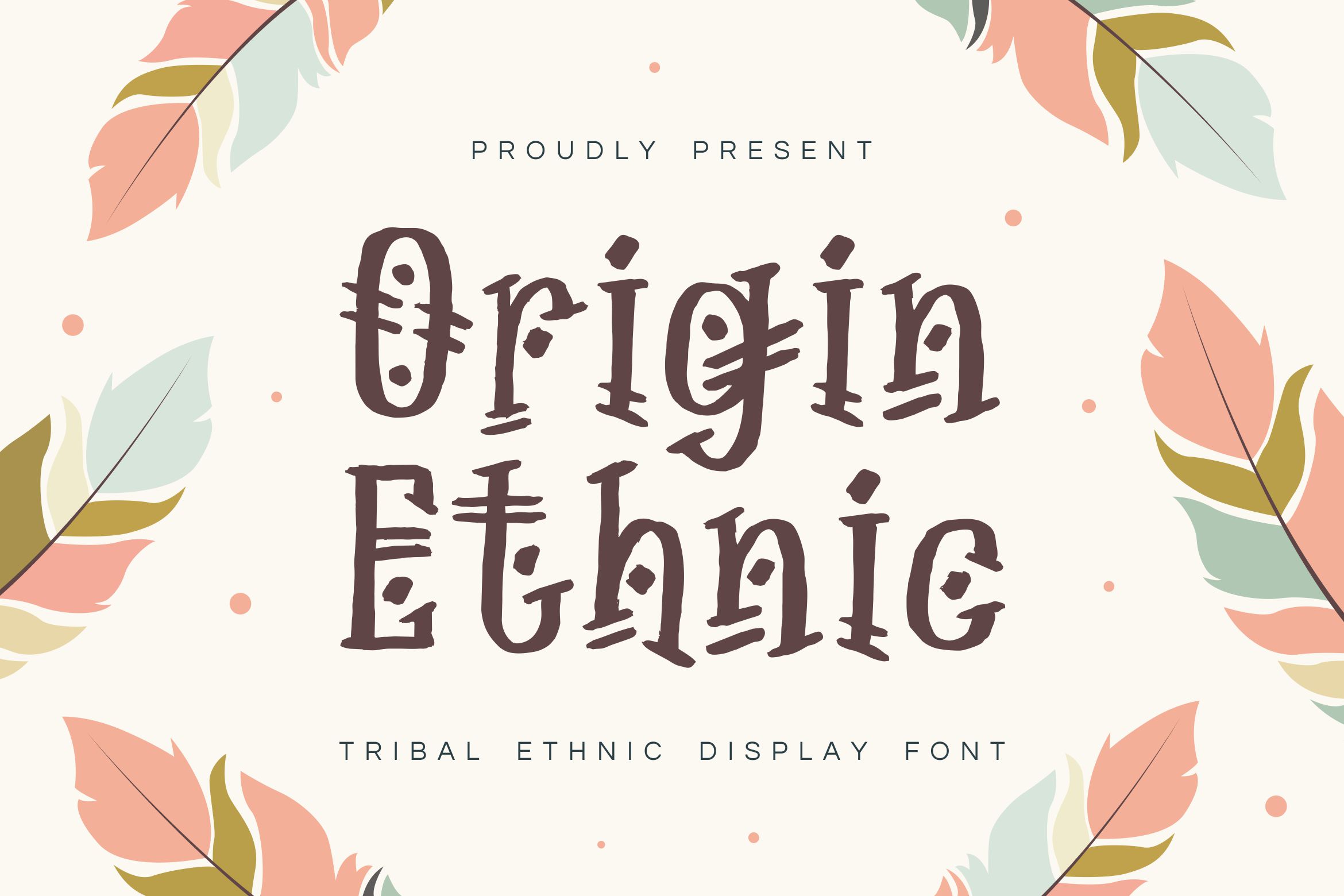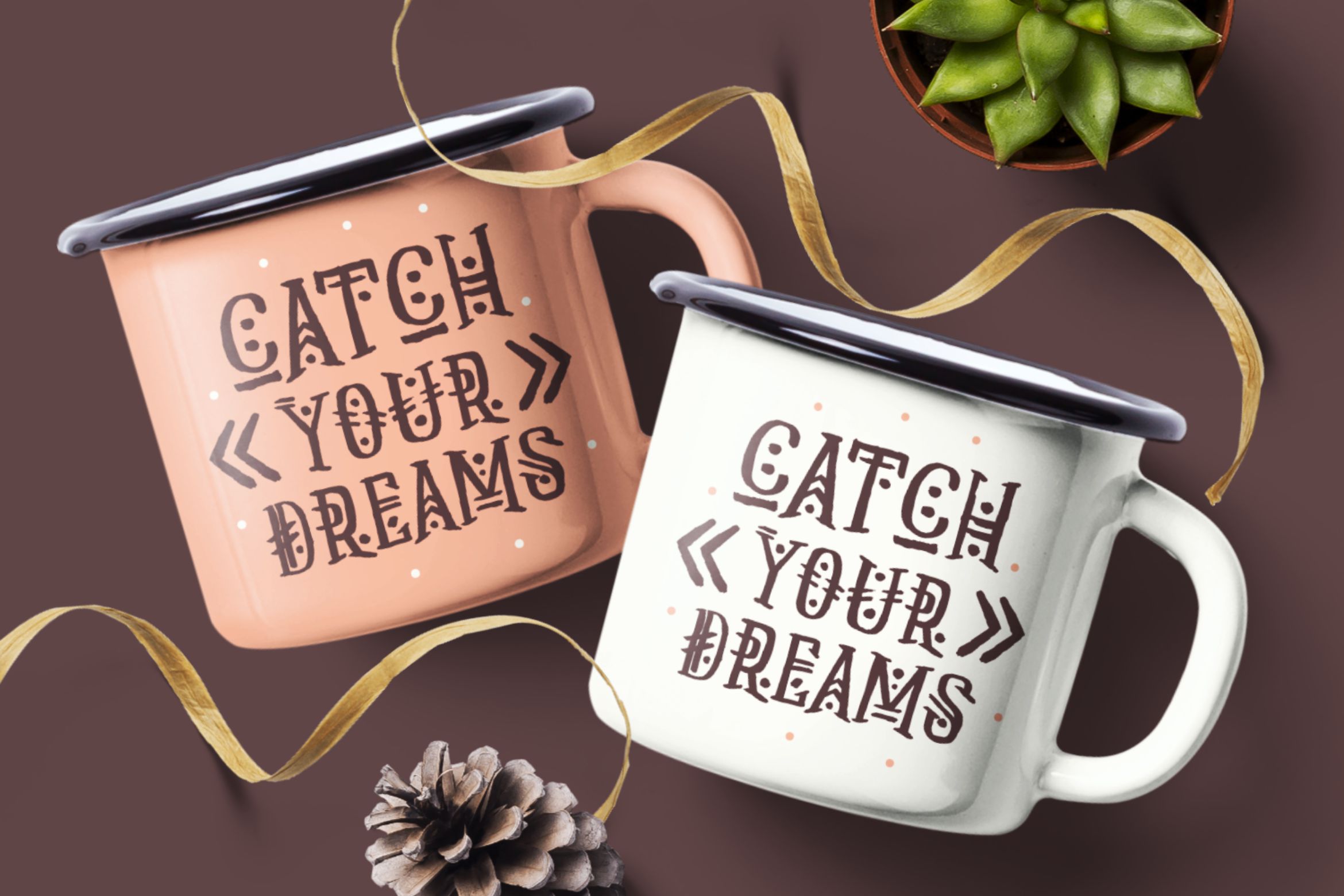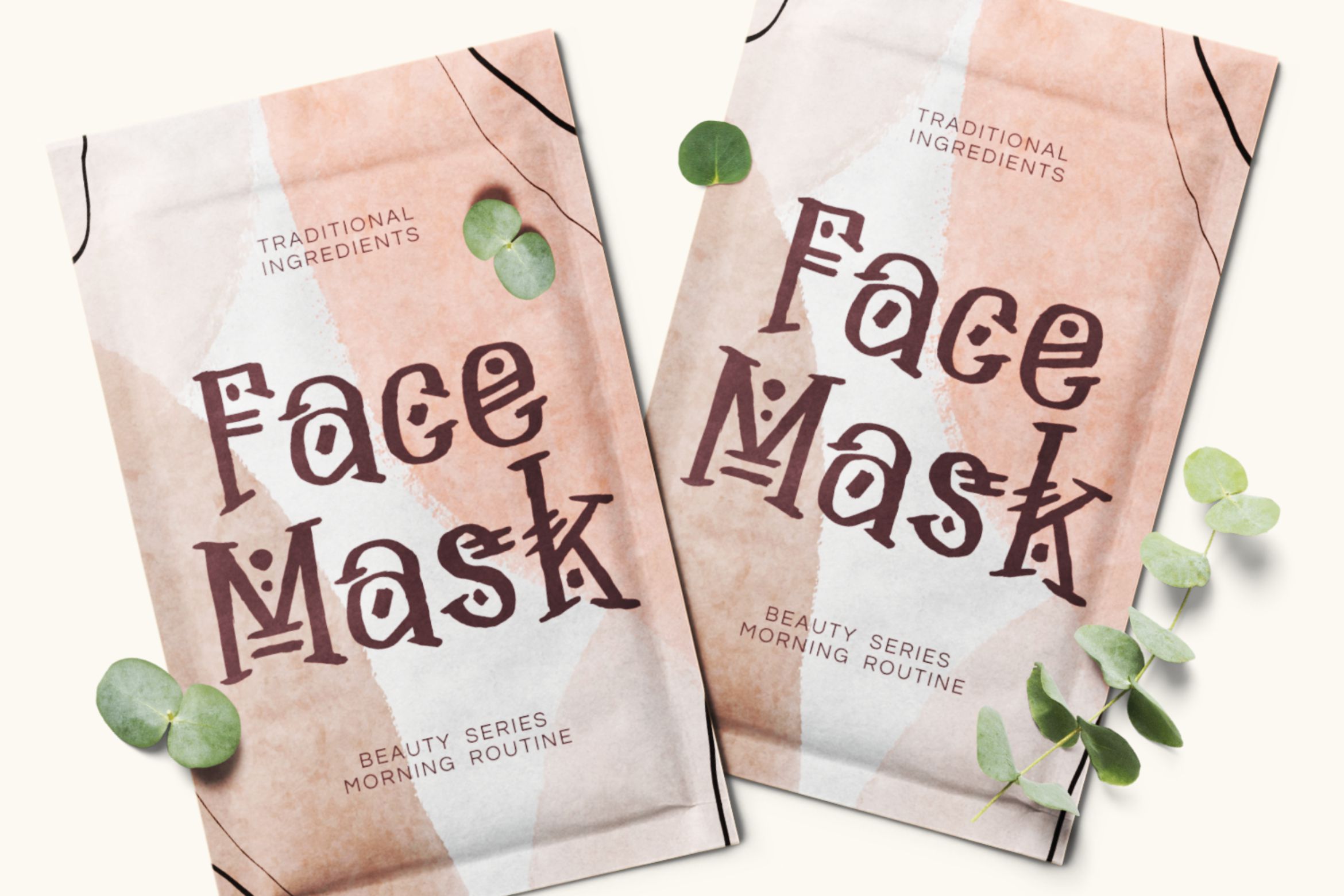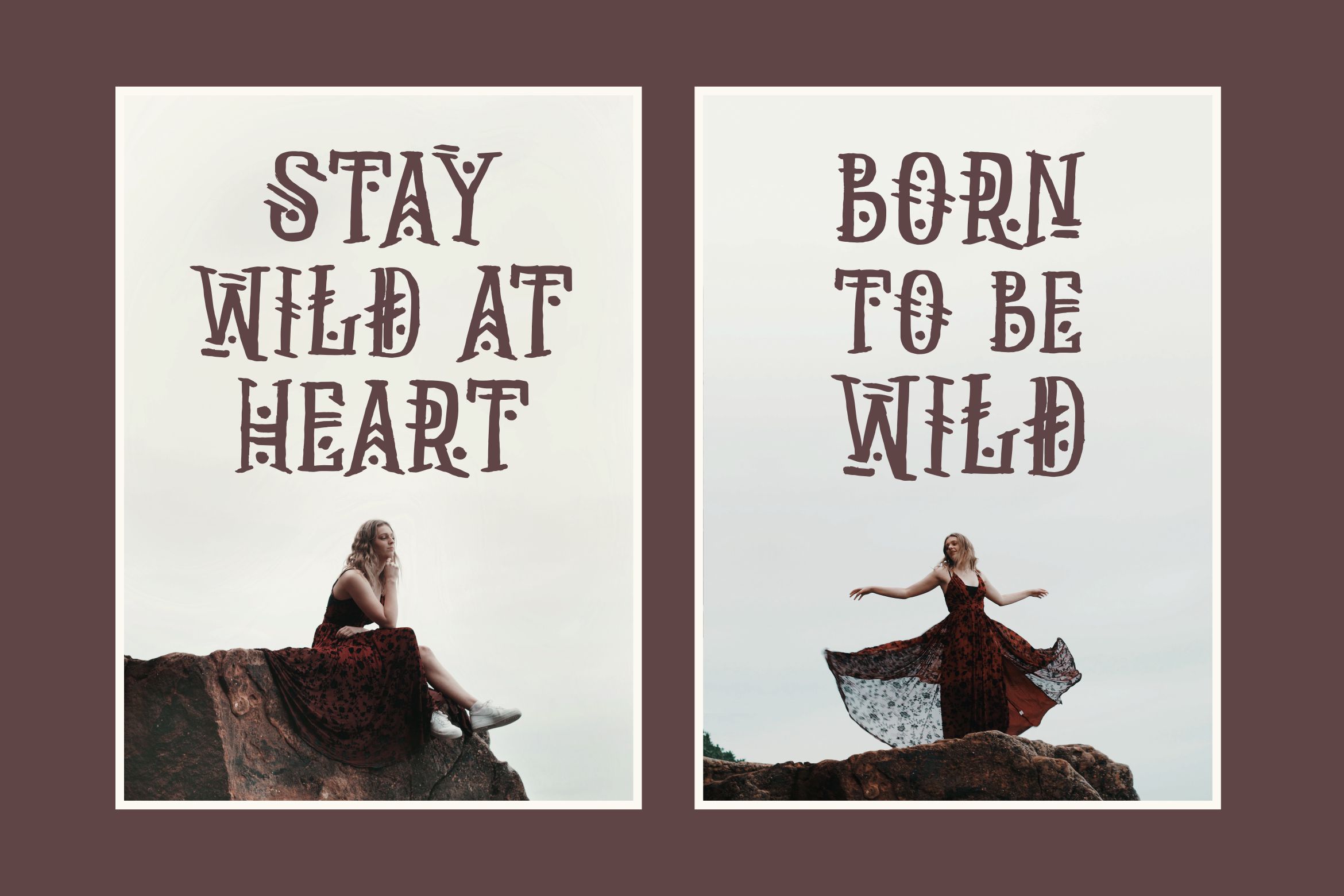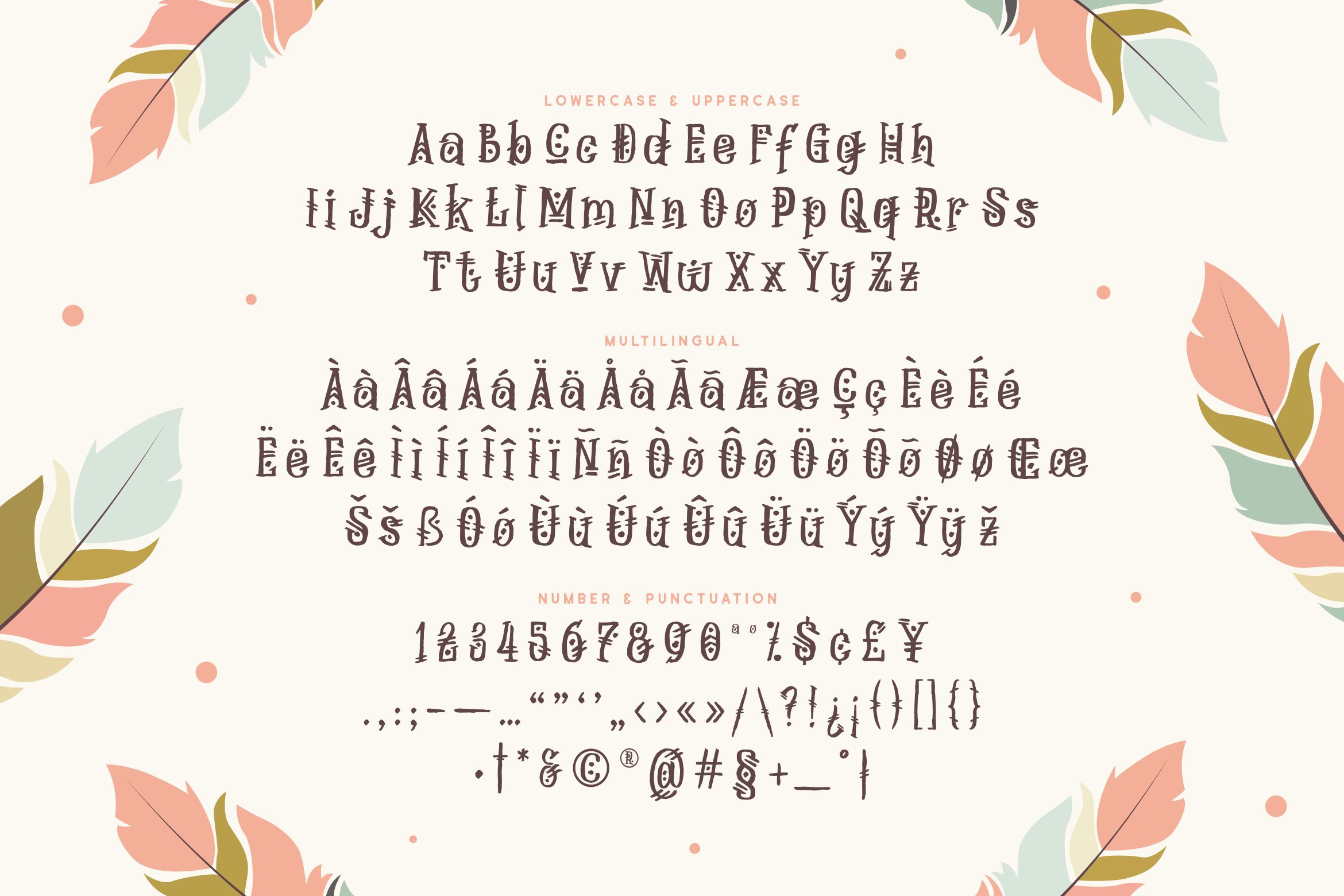
Origin Ethnic is a bold tribal-inspired display font that captures the spirit of tradition and cultural heritage. With its unique decorative cuts and handcrafted details, this font brings an authentic ethnic vibe, perfect for designs that want to highlight natural, rustic, or adventurous aesthetics. Each character is designed with artistic tribal nuances, making it ideal for posters, packaging, branding, and creative crafts.
Perfect for ethnic products, adventure branding, music festival posters, handmade crafts, and lifestyle merchandise, Origin Ethnic delivers both strength and personality. Its distinctive look ensures that your design stands out with a wild, natural, and artistic charm, whether used on digital projects, print, or product packaging.
Origin Ethnic